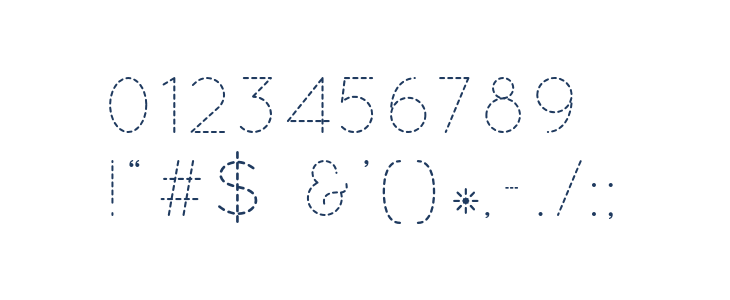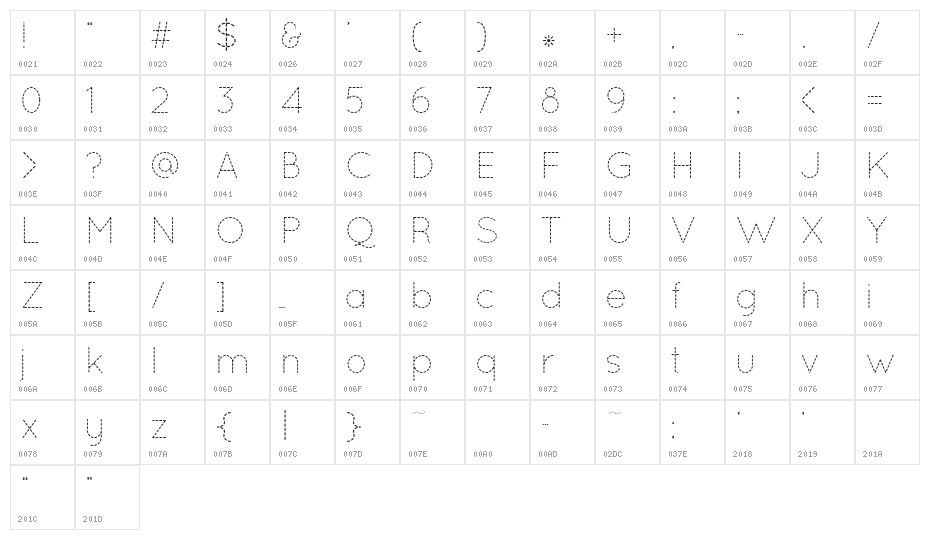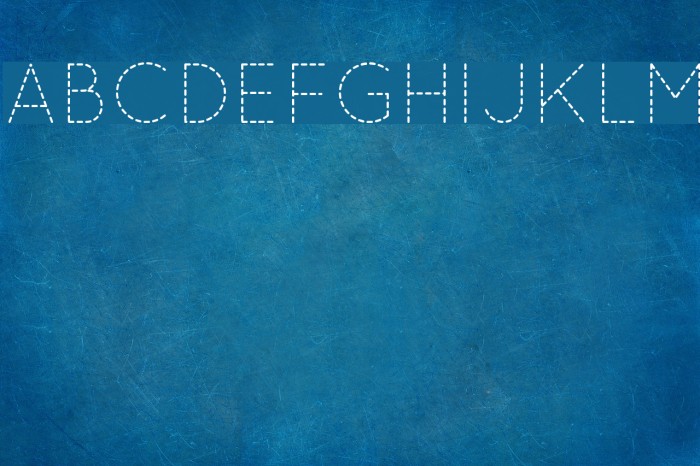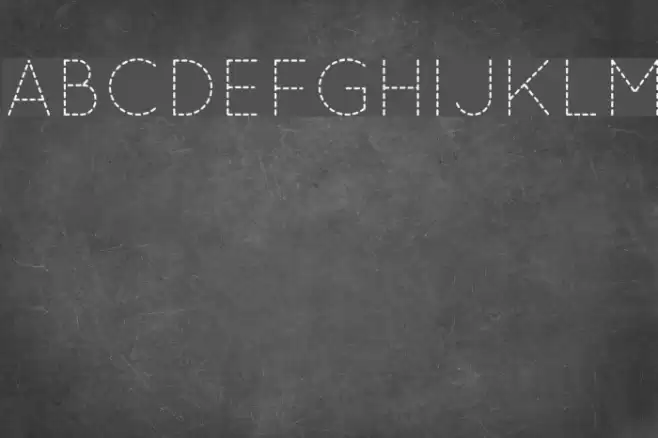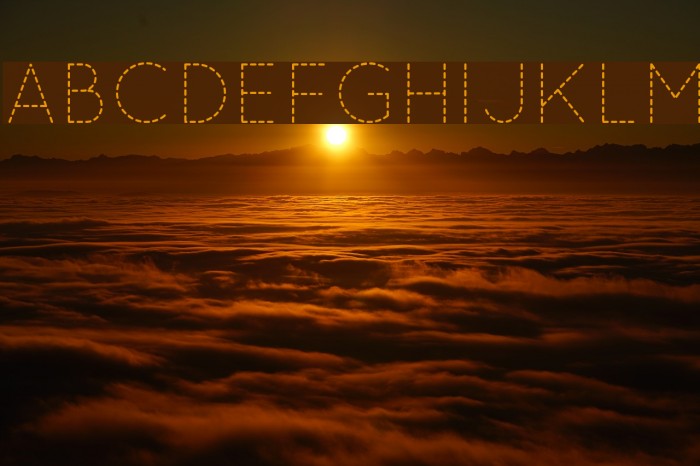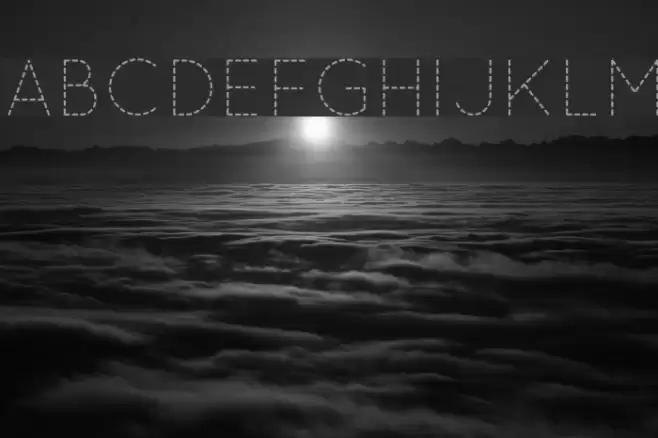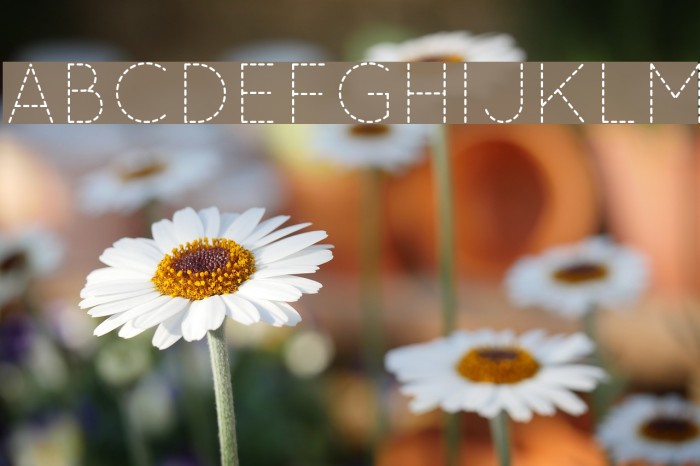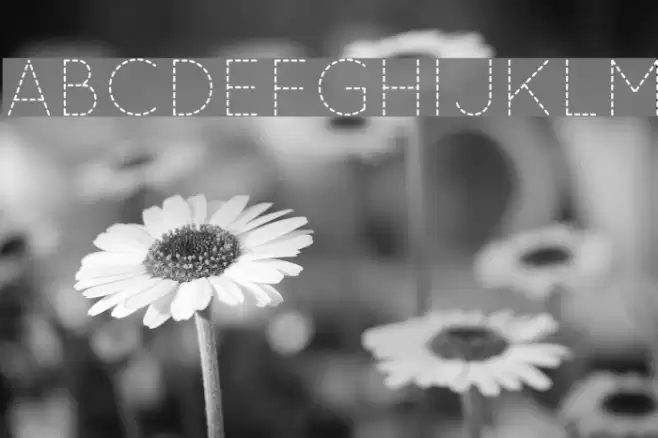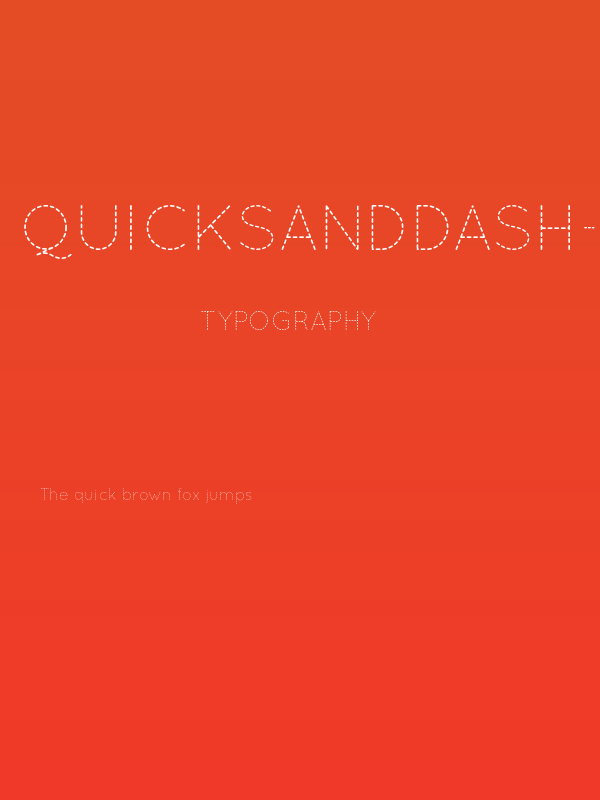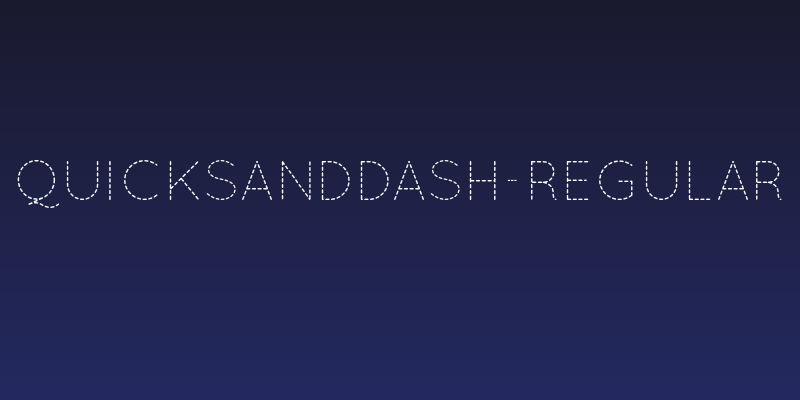
QuicksandDash-Regular Font
QuicksandDash-Regular Description
This font features a unique dashed line style, creating a playful and informal appearance. The characters are evenly spaced, with a consistent stroke width that gives it a clean and modern look. The uppercase and lowercase letters maintain a uniform height, contributing to its readability. The numbers and special characters follow the same dashed pattern, ensuring a cohesive design throughout. This font's distinct style makes it suitable for creative projects where a casual and approachable tone is desired.
Use CaseHeadlines, Logos, Creative projects
Proposed ProjectsIdeal for children's books, educational materials, playful branding, and creative design projects.